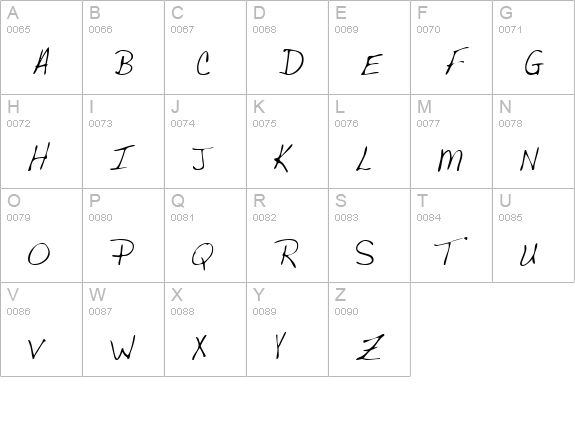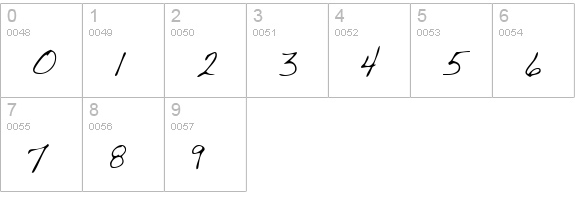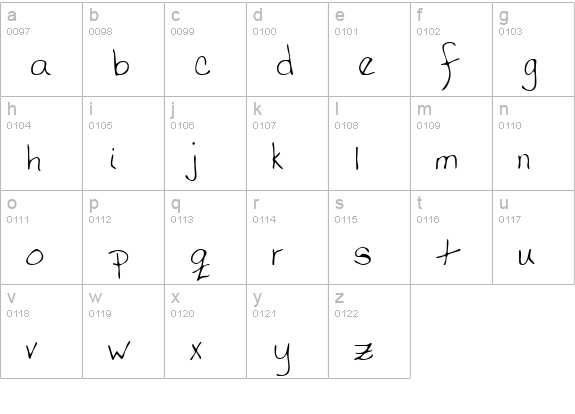
CodysHand Regular is the standard, neutral variant in the CodysHand typeface family \xE2\x80\x94 well suited to general body text, paragraphs, and standard typographic work.
CodysHand Regular font is a charming and versatile typeface that is perfect for adding a personal touch to your projects. With its handwritten style and playful curves, this font exudes a warm and friendly vibe that is sure to captivate your audience. Whether you're designing greeting cards, invitations, or social media graphics, CodysHand Regular is the ideal choice for creating a unique and engaging look. What's even better is that CodysHand Regular font is available for free download at FontsMarket.com. Simply head over to the website and grab this delightful font to elevate your designs to the next level. Don't miss out on the opportunity to add a touch of handcrafted beauty to your creations with CodysHand Regular font, now conveniently accessible at FontsMarket.com.